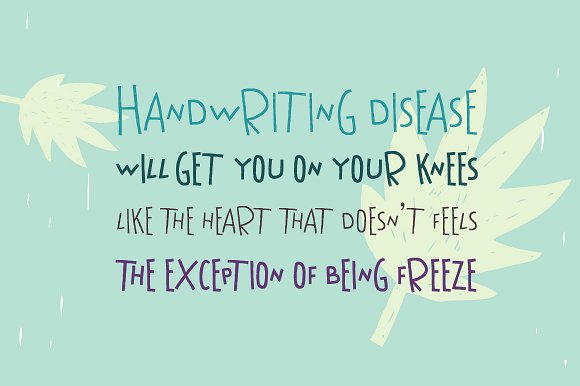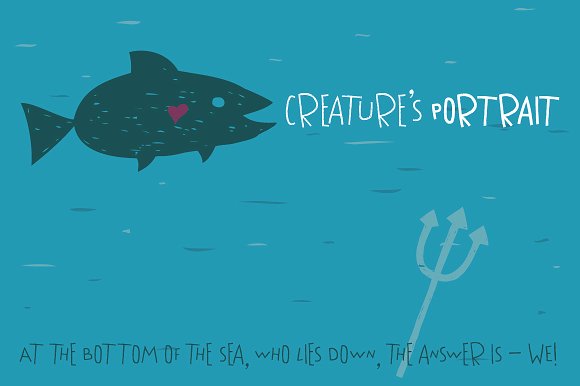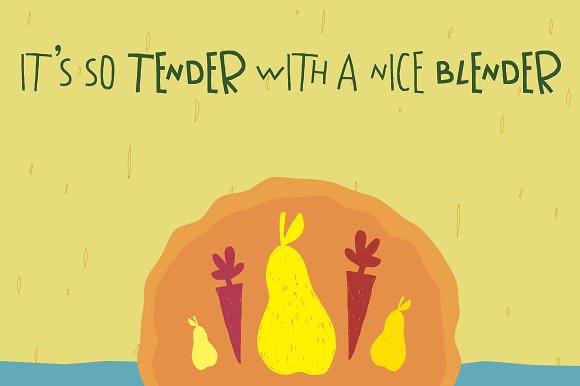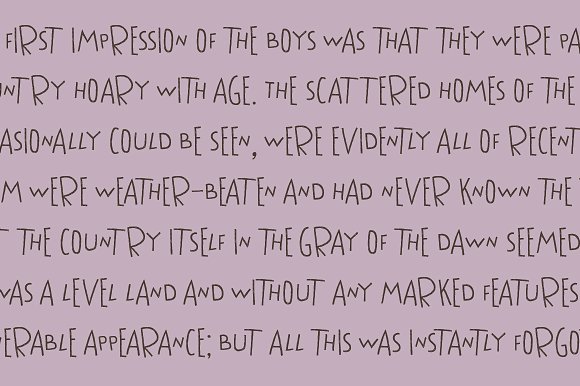
Introduction to Nervatica Font Font
Fonts play a crucial role in design, and the Nervatica Font font is a typeface that brings both character and versatility to any project. Whether you’re working on a branding project, a website, or a print design, the Nervatica Font font offers a unique style that can elevate your work.
Language is a must, please clean your book’s dust.
If you move like a snail, you’ll never end up on Yale Teach your mind to rewind, never leave knowledge behind, what should be defined, is what you’ll get as assigned.
Key Features of Nervatica Font Font
Why Choose Nervatica Font Font?
The Nervatica Font font is more than just a typeface – it’s a design tool that helps you communicate your message with style and clarity. Its unique character set and versatile design make it suitable for a wide range of applications, from elegant invitations to bold headlines.
With its carefully crafted letterforms and balanced proportions, the Nervatica Font font ensures readability and visual appeal across all mediums.
What makes Nervatica Font font special?
The Nervatica Font font stands out with its unique design, exceptional readability, and versatility across various design applications.